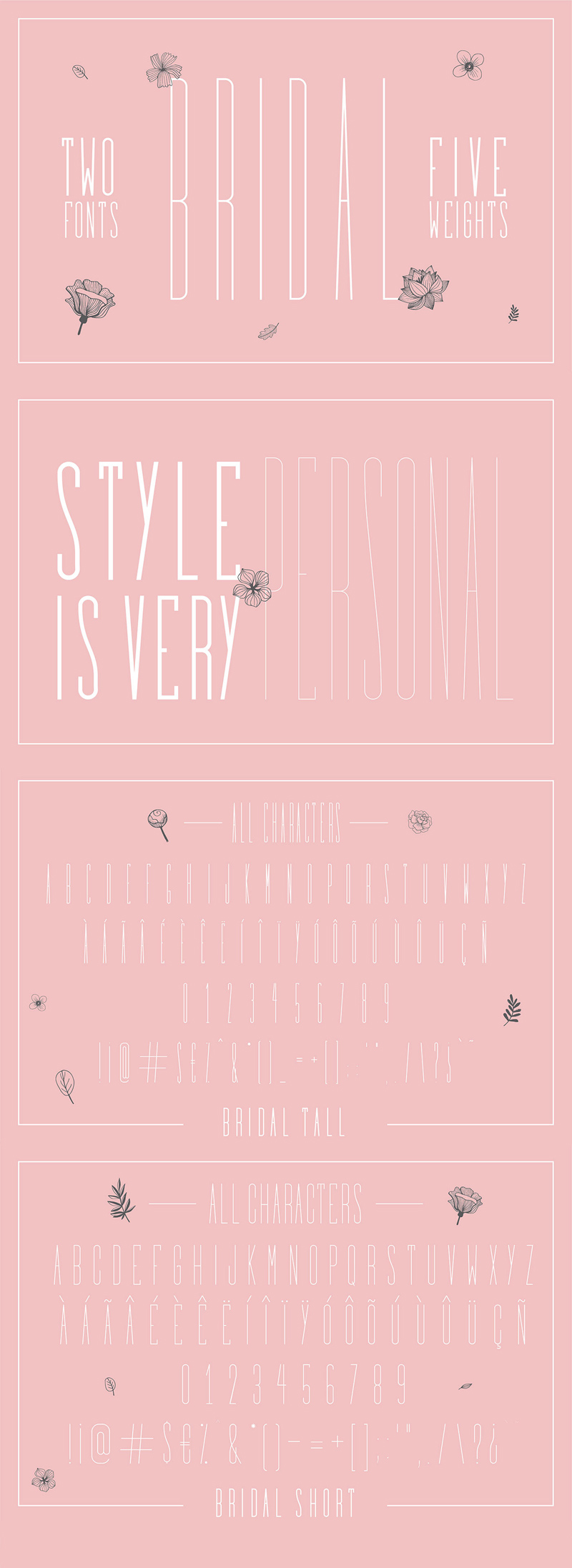
Bridal Sans Serif – Free Wedding Font
Nice job by designer Sérgio Haruo on this Bridal free(personal use) font that you can use for wedding related projects and events.
Meet Bridal Sans Serif Font! A font inspired by my best selling font Sprout!. Bridal font comes with two styles, Tall and Short, with 5 weights each, so you can make gorgeous designs with a lot more flexibility for your wedding and fashion projects.